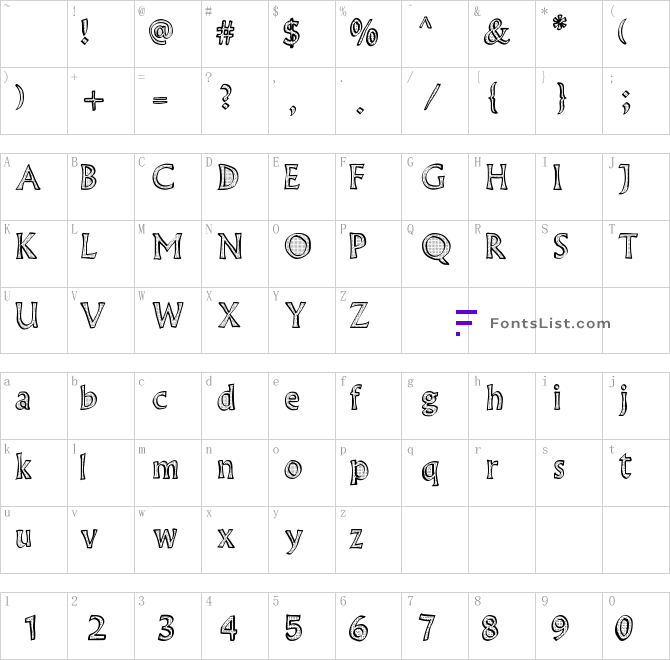
- Font Name:Angie in Love
Angie-in-Love.ttf is a very beautiful artistic font, Angie-in-Love.ttf is widely used in the design and printing of various books and pictures,Angie-in-Love.ttf has a strong visual impact,Angie-in-Love.ttf is a commonly used font in newspapers, magazines and books, and is used in posters, e-commerce Poster design, store design, logo design, font design and other fields.Angie-in-Love.